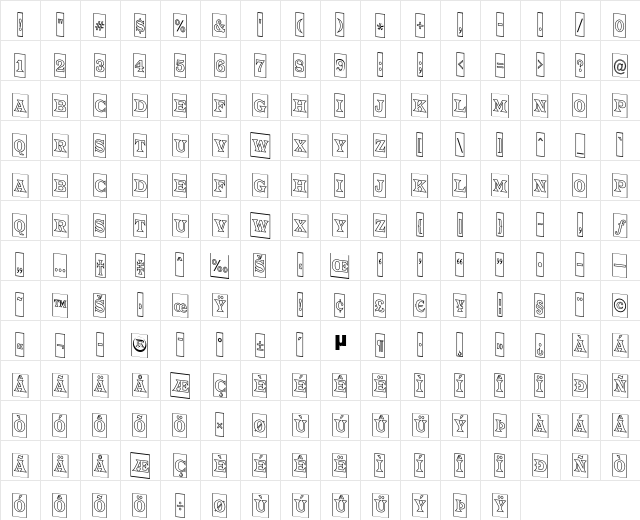
a_TrianglerCmOtlDn Regular Free Font
a_TrianglerCmOtlDn Regular
Designer: W.Chufarofsky & M.Slutsker
Design Context for a_TrianglerCmOtlDn
a_TrianglerCmOtlDn is a composed and adaptable typeface that performs quietly and consistently across a wide range of design contexts.